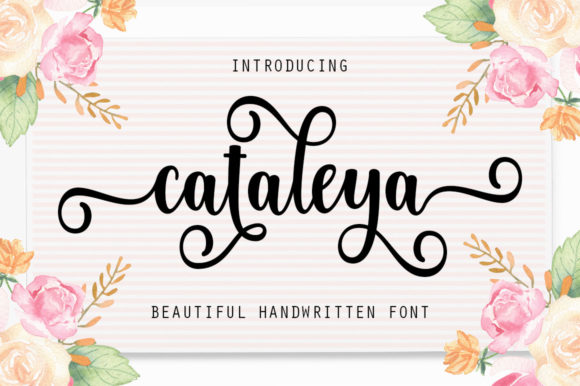
I still remember the frustration of working on a project, hours spent crafting the perfect design, only to realize that the font I chose just wasn’t cutting it. The client wanted something more elegant, more sophisticated. I scoured the internet for the perfect script font, but nothing seemed quite right. That was until I stumbled upon Cataleya Script Font. ✨
A Game-Changing Font: Cataleya Script
Cataleya Script is a chic, refined script font that emanates sophistication and elegance. Its stylish alternates and ligatures make this font the perfect match for any project that requires a touch of luxury. What sets Cataleya Script apart is its PUA encoding, which means you can access all glyphs and swashes with ease! ✅
• ✨ Elegant and sophisticated design
• ✅ Stylish alternates and ligatures for added versatility
• 🔍 PUA encoded for easy access to glyphs and swashes
• 💻 Highly legible, even at smaller font sizes
While Cataleya Script is an exceptional font, there are a few minor quirks to be aware of. ⚠️ Some users may find that the font’s elegance can be overwhelming for certain projects, such as those requiring a more playful or casual tone. Additionally, 🤔 the font’s script style may not be suitable for very long blocks of text.
Cataleya Script was designed with the goal of creating a font that exudes elegance and sophistication. The designer’s inspiration came from the world of high-end fashion and luxury branding, where typography plays a crucial role in conveying a sense of refinement and style. The result is a font that is both beautiful and functional, perfect for designers looking to add a touch of luxury to their projects.
Is Cataleya Script suitable for body text? While Cataleya Script is highly legible, it’s primarily designed for display text. For longer blocks of text, a serif or sans-serif font may be more suitable.